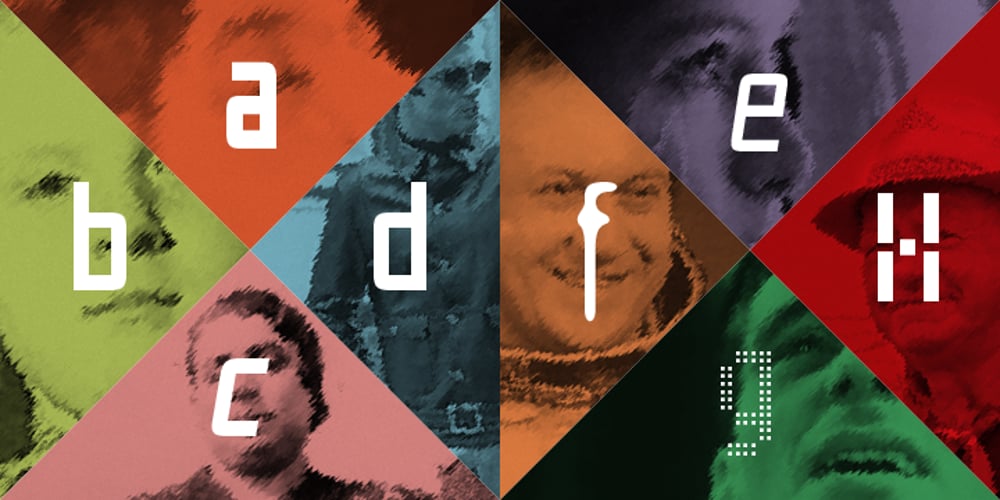
NT Gagarin
NT Gagarin font
NT Gagarin Font Family was designed by published by Novo Typo. NT Gagarin contains 18 styles and family package options. Anna Gagarin is the loving matriarch of the Gagarin Family. Her life was full of love and passion. She had several affairs with Futurist and Contstructivist artist in the beginning of the 20th century. She was in love with the Russian poet Vladimir Majakovski (born on July 19th, 1893 and died in Moscow on the April 14th, 1930). She gave birth to his son Boris. She called him ‘a cloud with trousers’. After this love story, Anna Gagarin met the designer and artist Gustav Klucis in Italy. His radical and political ideas were much too childish for her. After a period of love and passion Anna gave birth to his son. At that time they were in Italy, which explains his italic forms. After her return to Moscow in the beginning of the 1920’s Anna was introduced by Alexander Rodchenko. They were heavenly in love but Ilja Stepanova was very jealous on her husband. Anna once said that ‘Alexander fills mine construction with love…’ That phrase can be an explanation for the term Constructuvism as an art movement. Alexander was the great love of Anna. She gave birth to their love-baby Dimitri Gagarin. That night Alexander designed his most famous poster. A decade before that Anna told it was ‘a time for a change’. In a local bar in Sint Petersburg she met Gregory Rasputin. At that time Rasputin was a well known person and a respected member of the Sint Petersburg upper class.His diabolic character influenced Anna and after several months she gave birth to their son Kurt. He inherited the main characteristics of his father. The Gagarin Family wants to give love and wants be loved…